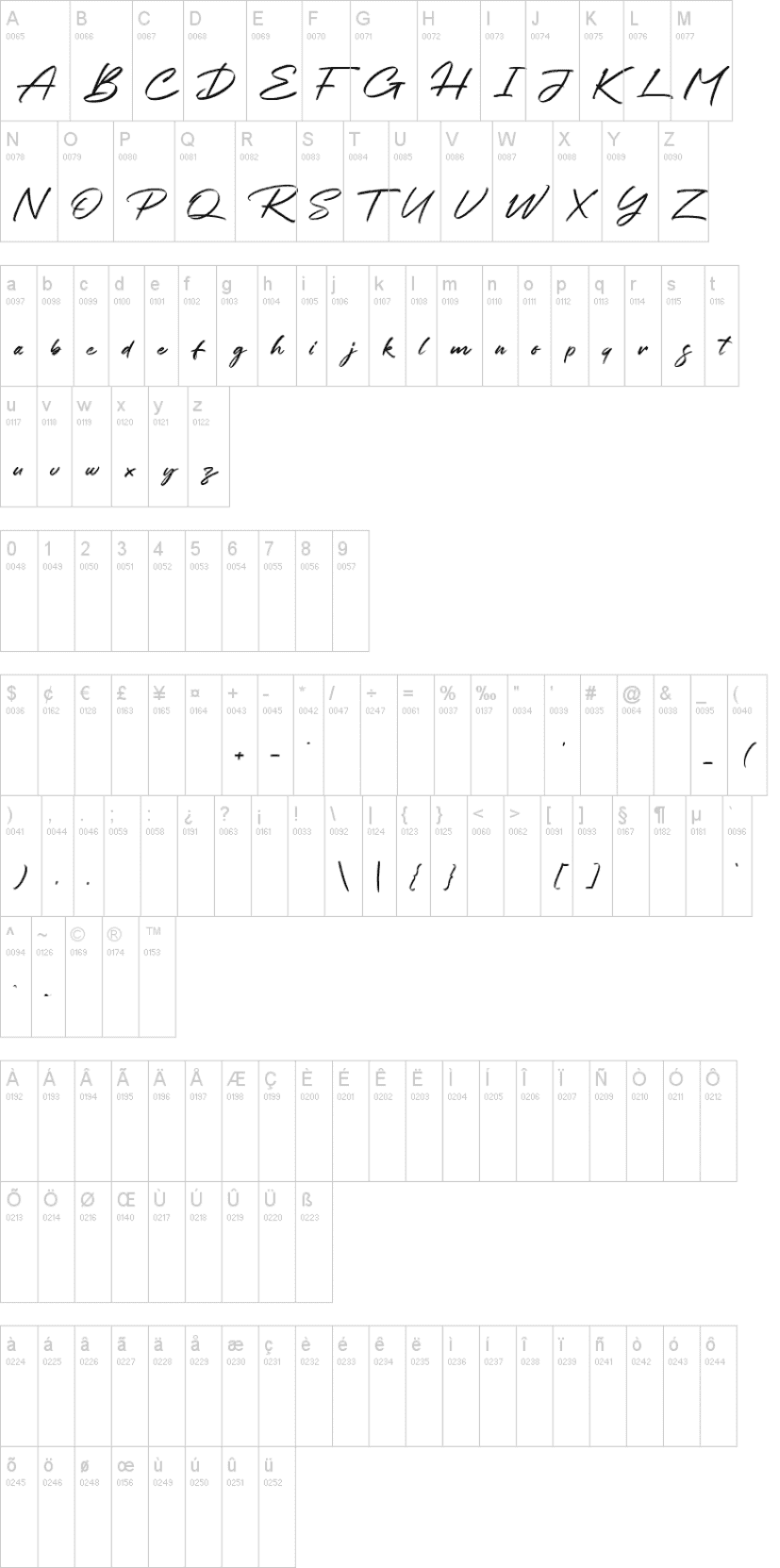
Discover Chalifor Dalsatic Font, part of the Brush collection—a versatile and unique font perfect for adding a personal touch to your projects. Download it for free and enjoy crafting designs with style, from invitations to social media posts. This font is available exclusively for personal use, giving you the freedom to create without limits. Unlock your creativity with Chalifor Dalsatic Font today!